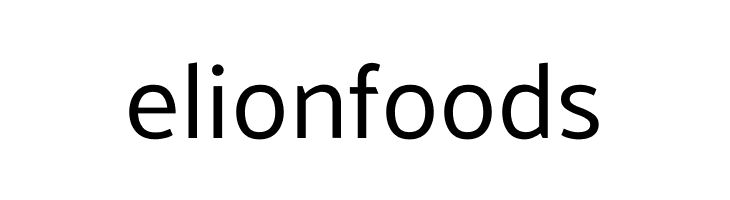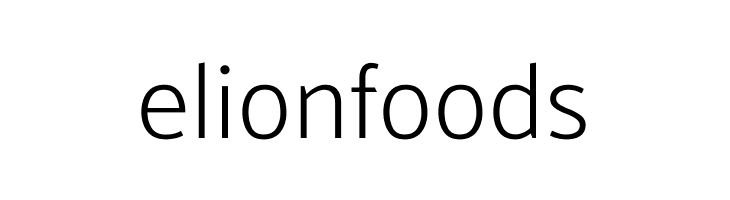
A modern, geometric sans-serif font with clean lines and uniform stroke widths.
A bold, modern sans-serif typeface with excellent readability and versatility.
A clean, modern typeface with uniform stroke width and excellent readability.
A modern sans-serif font with a semi-bold weight and clean, uniform design.
A modern, light sans-serif font with low contrast and excellent readability.
A modern, thin sans-serif font with clean lines and balanced spacing.
A modern, geometric sans-serif font with balanced proportions and clear legibility.
A modern, geometric sans-serif font with balanced proportions and consistent stroke width.
A modern, bold typeface with clean lines and excellent readability.
A modern, light, and clean sans-serif font with uniform stroke width.